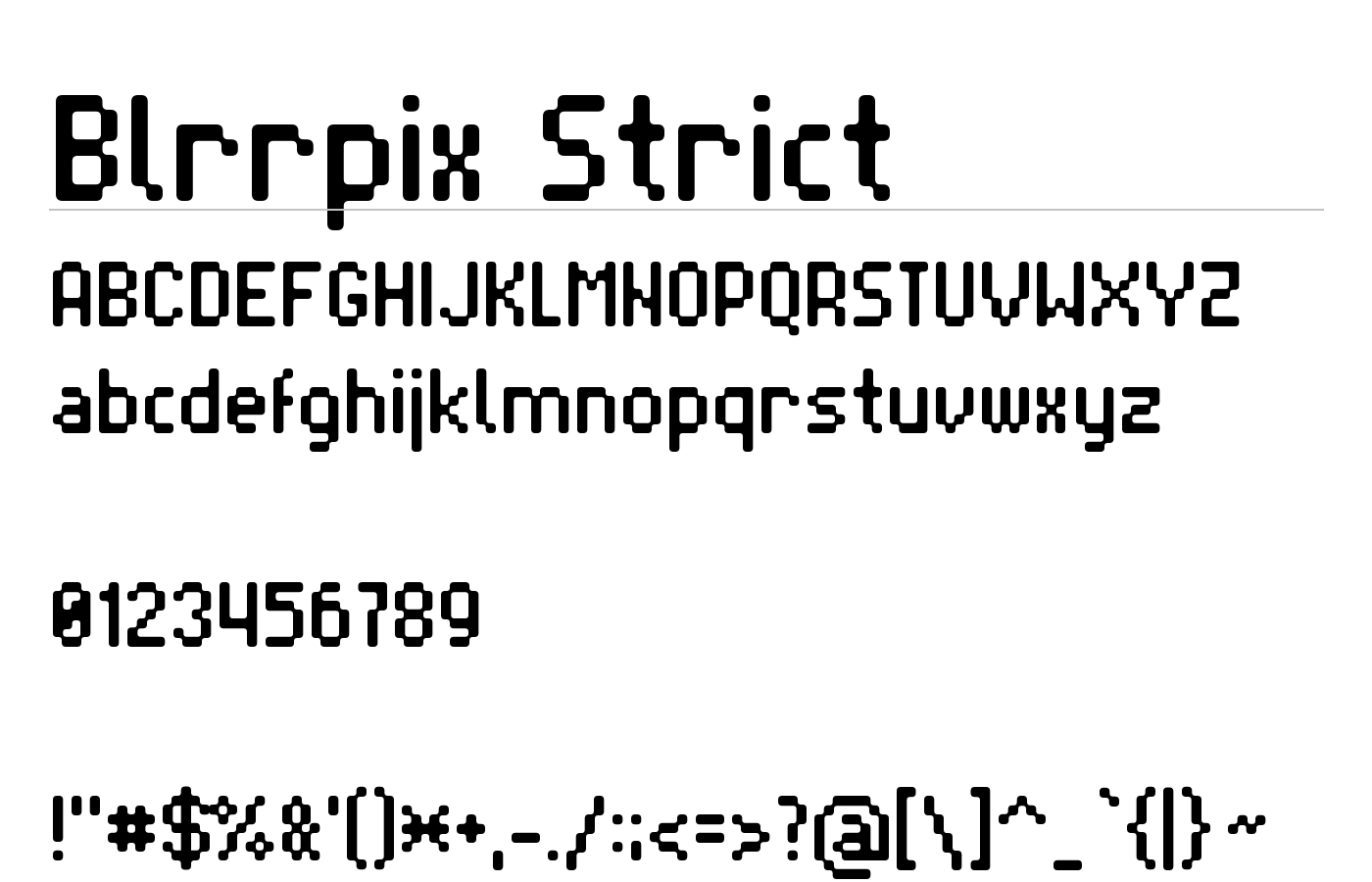
Blrrpix is a pixelated, monospace sans serif font that offers a tech-inspired, digital look with a slightly rounded, blocky structure. Its uniform stroke weight and squared shapes create a retro yet modern feel, making it ideal for coding interfaces, video games, or any design needing a futuristic and playful aesthetic. This font works well in headlines, branding, or digital displays where clarity and a distinctive, computer-like style are desired.
Blrrpix Font
About Blrrpix Font
| Font family | Blrrpix Font |
| Designer | Vít Čondák |